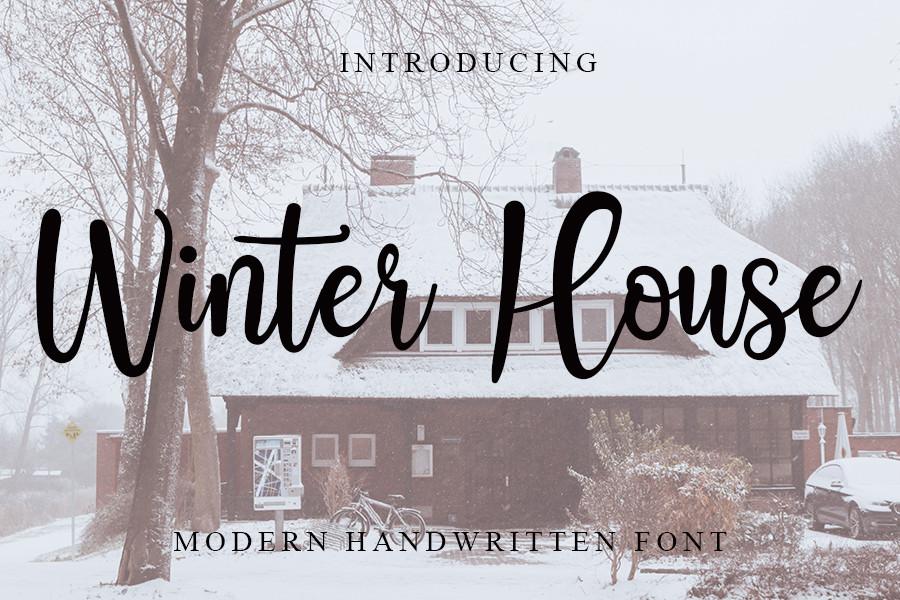
Winter House Font Description
Winter House is an elegant handwritten font with a contemporary atmosphere and impeccable form, inspired by a timeless classic calligraphy. Not too thin and not too thick, balanced and varied, this font was designed to enhance the beauty of your projects.